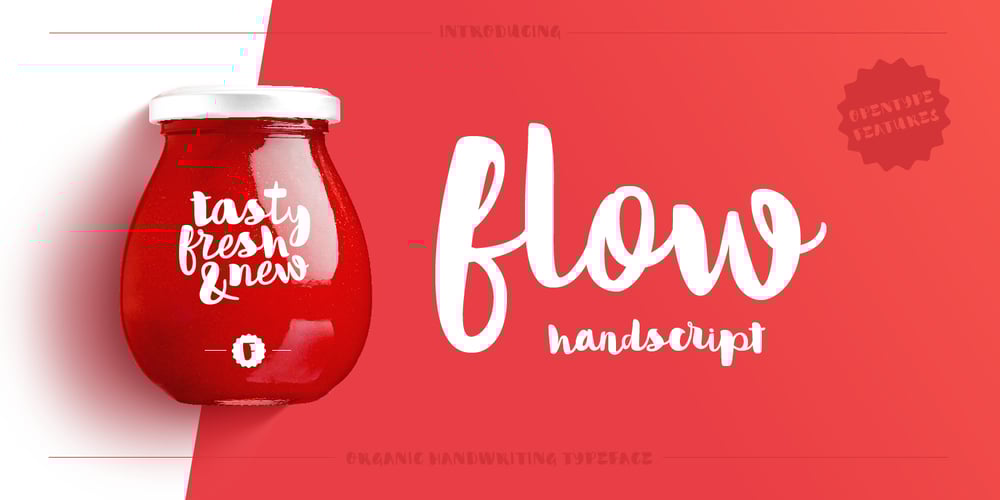
Flow Handscript Font Family was designed by published by Taner Ardali. Flow Handscript contains 1 styles and family package options. Main idea of this font depends on creating a “well designed handwriting typeface”. With general brush script characteristics, this font is also designed in detail letter by letter to create the best geometric values. It is particularly designed to achieve better connections between letters as well as the best rhythm for words. It is not just a hand brush typeface, Flow handscript is a high quality designed typeface that can be used for graphic design like packaging, branding, poster design and invitations.